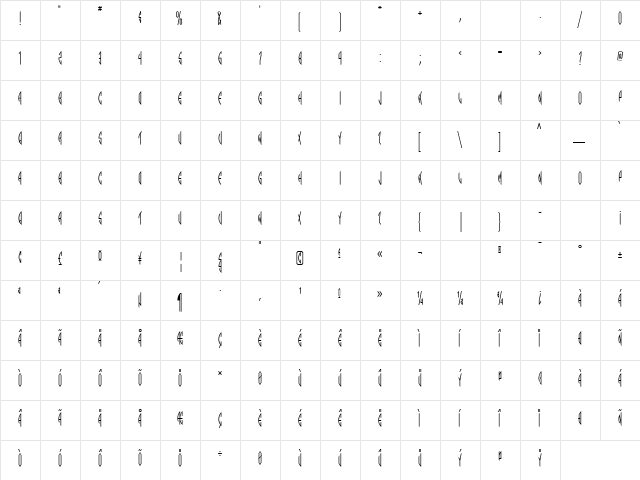
ArkSGL MonogramLeft Font Preview
ArkSGL MonogramLeft
Design Context for ArkSGL Typeface
ArkSGL uses fixed-width spacing throughout, giving it the structured, systematic character associated with coding environments and technical documentation.